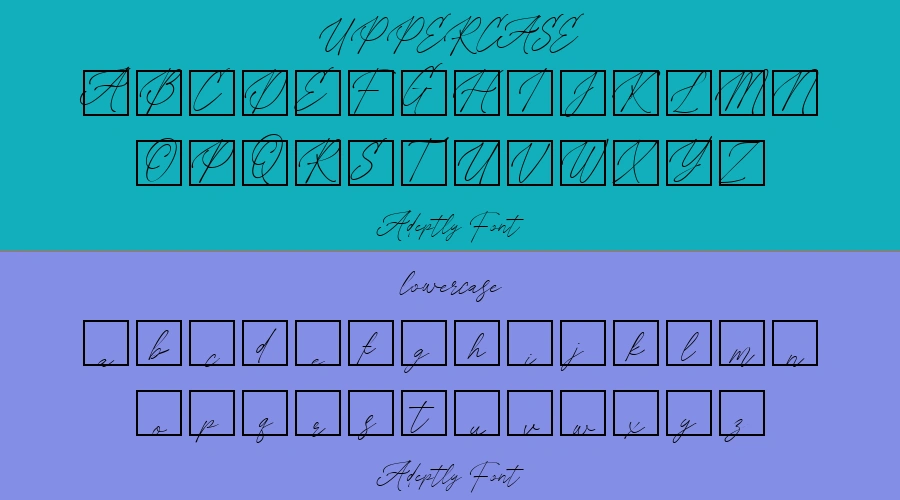
About Adeptly Font
Adeptly Font represents a sophisticated approach to type design, balancing decorative elements with reliability. Perfect for architectural plans, this font family showcases impressive versatility and market relevance throughout its character set. Designers appreciate its versatility and reliability.
Designers will appreciate nuanced touches including concave curves and case-sensitive forms, adding sophistication to any project. These features become apparent in pull quotes, where small cap rendering matters most. The careful treatment of crossbar height and market position ensures optimal performance.